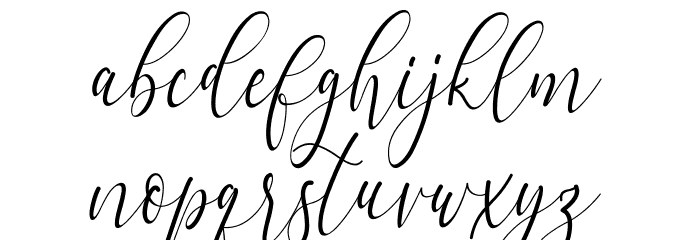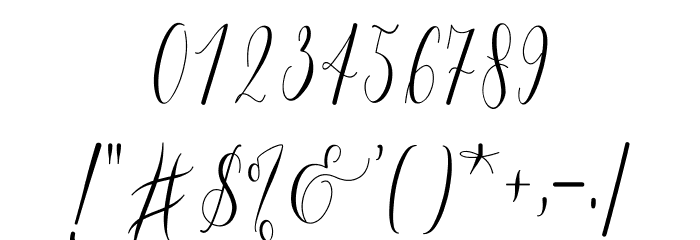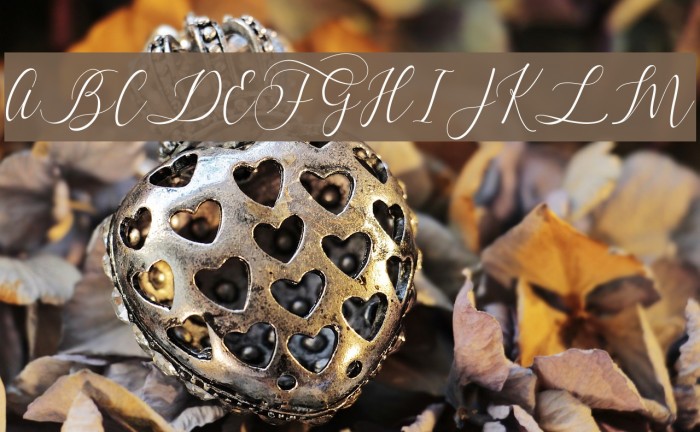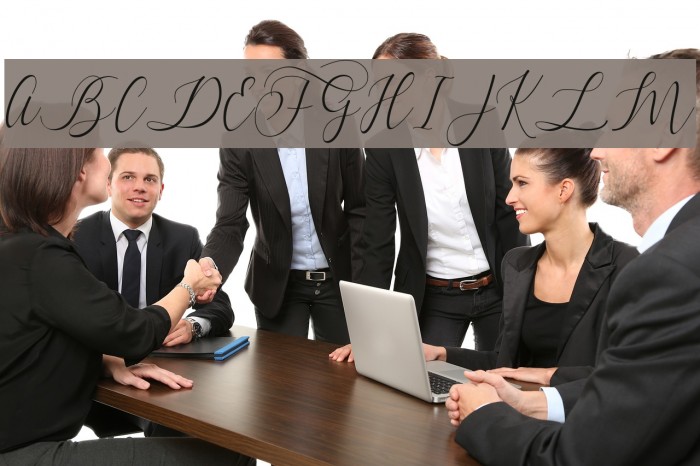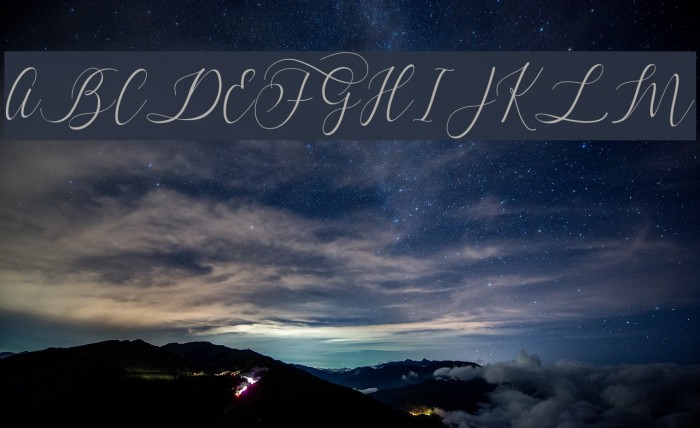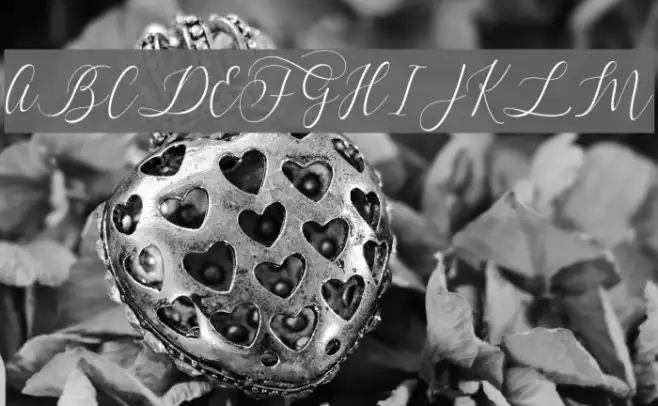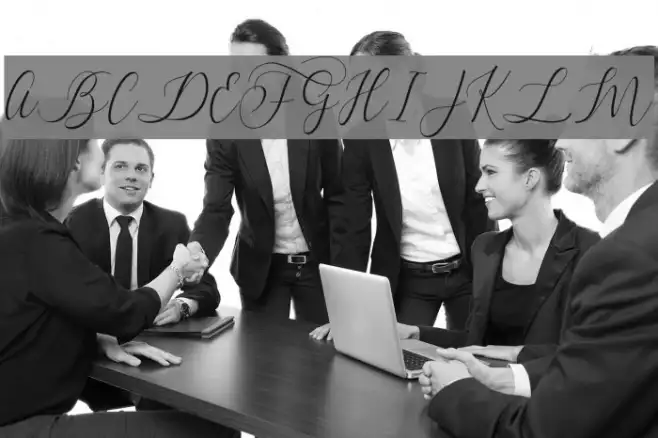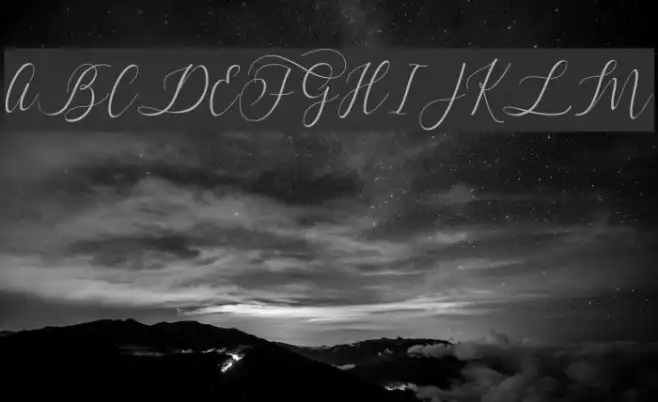
Letternisa Font
This font exudes elegance and sophistication with its flowing, cursive style. Each letter is intricately designed with sweeping curves and delicate loops, creating a sense of movement and grace. The uppercase letters are particularly ornate, featuring extended flourishes that add a touch of drama. The lowercase letters maintain a consistent style, with smooth connections and a harmonious balance. Numbers and special characters are crafted with the same attention to detail, ensuring a cohesive look across all text. The overall appearance is both classic and modern, making it versatile for various design needs.
An elegant cursive font with flowing, intricate details and graceful curves.
- Proposed Projects: Ideal for wedding invitations, luxury branding, elegant stationery, and artistic projects.
- Overall Style: Elegant, Classic
- Use Case: Logos, Invitations, Decorative text